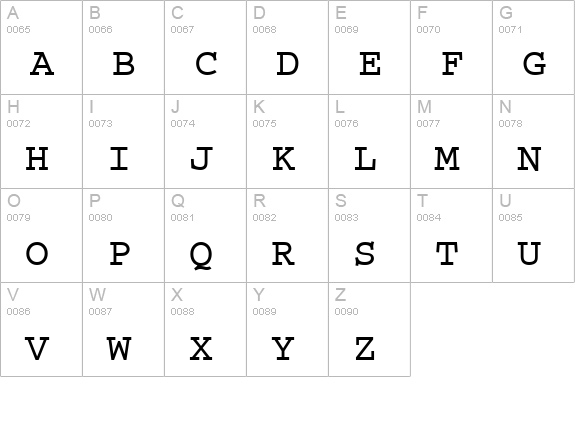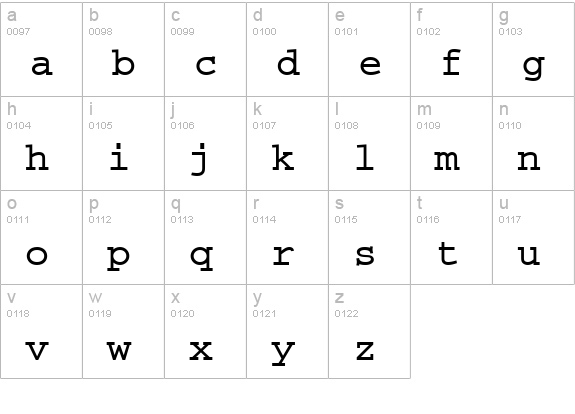
CourierMCY Bold Font Details
CourierMCY Bold is a strong, high-contrast variant in the CourierMCY typeface family \xE2\x80\x94 well suited to headlines, attention-grabbing titles, and strong calls-to-action.
CourierMCY Bold is a striking and versatile font that exudes confidence and professionalism. Its bold and clear lettering makes it perfect for making a statement in various design projects. Whether you're creating eye-catching posters, impactful headings, or sleek branding materials, CourierMCY Bold is sure to grab attention. And the best part? This amazing font is available for free download at FontsMarket.com! Now you can elevate your designs with this premium typeface without breaking the bank. Don't miss out on the opportunity to add CourierMCY Bold to your font collection today and take your projects to the next level.